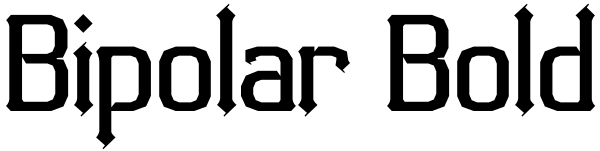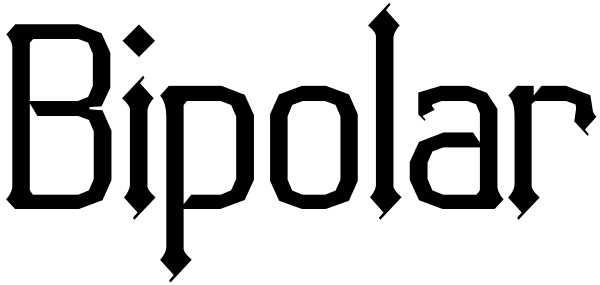
Bipolar
The Bipolar family of fonts is a synthetic blend of digital grid and historical blackletter forms, combining readability and ornamentation into a single modern interpretation. If you feel like you recognize this font style, you may have seen it as...